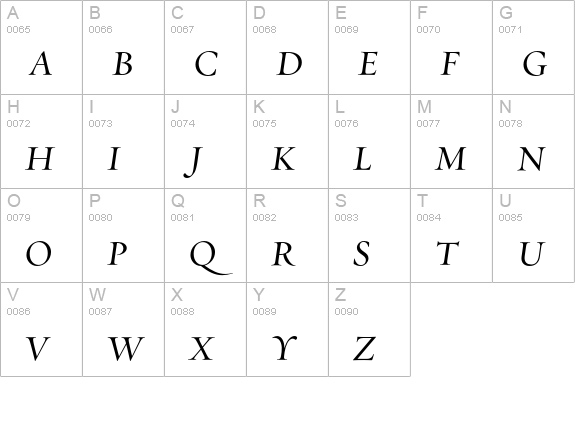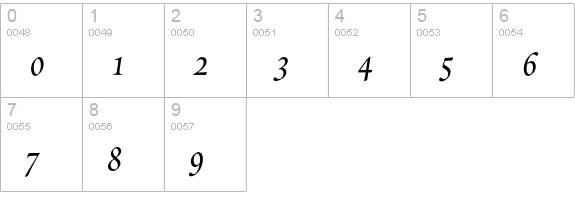
RequiemDisplay-HTF-Italic Font Details
RequiemDisplay-HTF-Italic is a distinctive, italic variant in the RequiemDisplay typeface family \xE2\x80\x94 well suited to design and typography projects.
RequiemDisplay-HTF-Italic is a captivating font that effortlessly combines elegance with a touch of edginess. Its sleek and stylish design makes it perfect for adding a touch of sophistication to any project. Whether you're creating a logo, designing a website, or working on a branding project, this font is sure to stand out and make a lasting impression. The italicized form of RequiemDisplay-HTF adds a unique twist, giving your text a sense of motion and dynamism. It effortlessly captures attention and draws the viewer's eye, making it ideal for headlines, titles, and promotional materials. One of the best things about RequiemDisplay-HTF-Italic is that it is freely available to download at FontsMarket.com. This means that you can easily access this stunning font without having to spend a single penny. Its availability for free makes it an excellent choice for designers, students, and anyone looking to add a touch of creativity to their projects. So why wait? Elevate your designs with the captivating charm of RequiemDisplay-HTF-Italic. Download it for free at FontsMarket.com and unleash your creativity today.